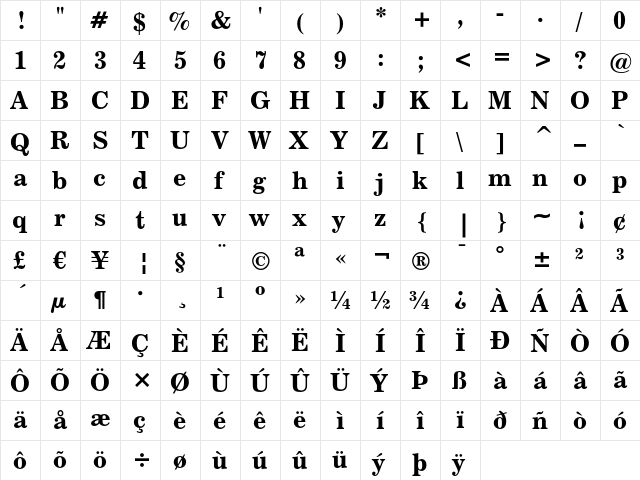
News 702 Bold
Design Context for News 702 Typeface
News 702 is a composed and adaptable typeface that performs quietly and consistently across a wide range of design contexts. Its bold stroke weight gives it real presence on the page.